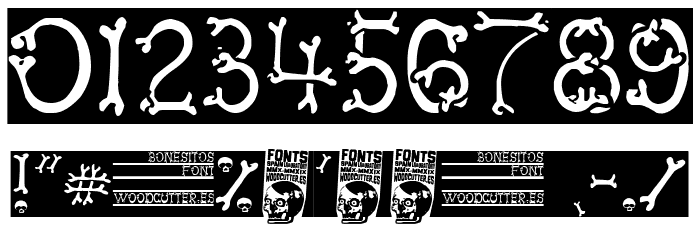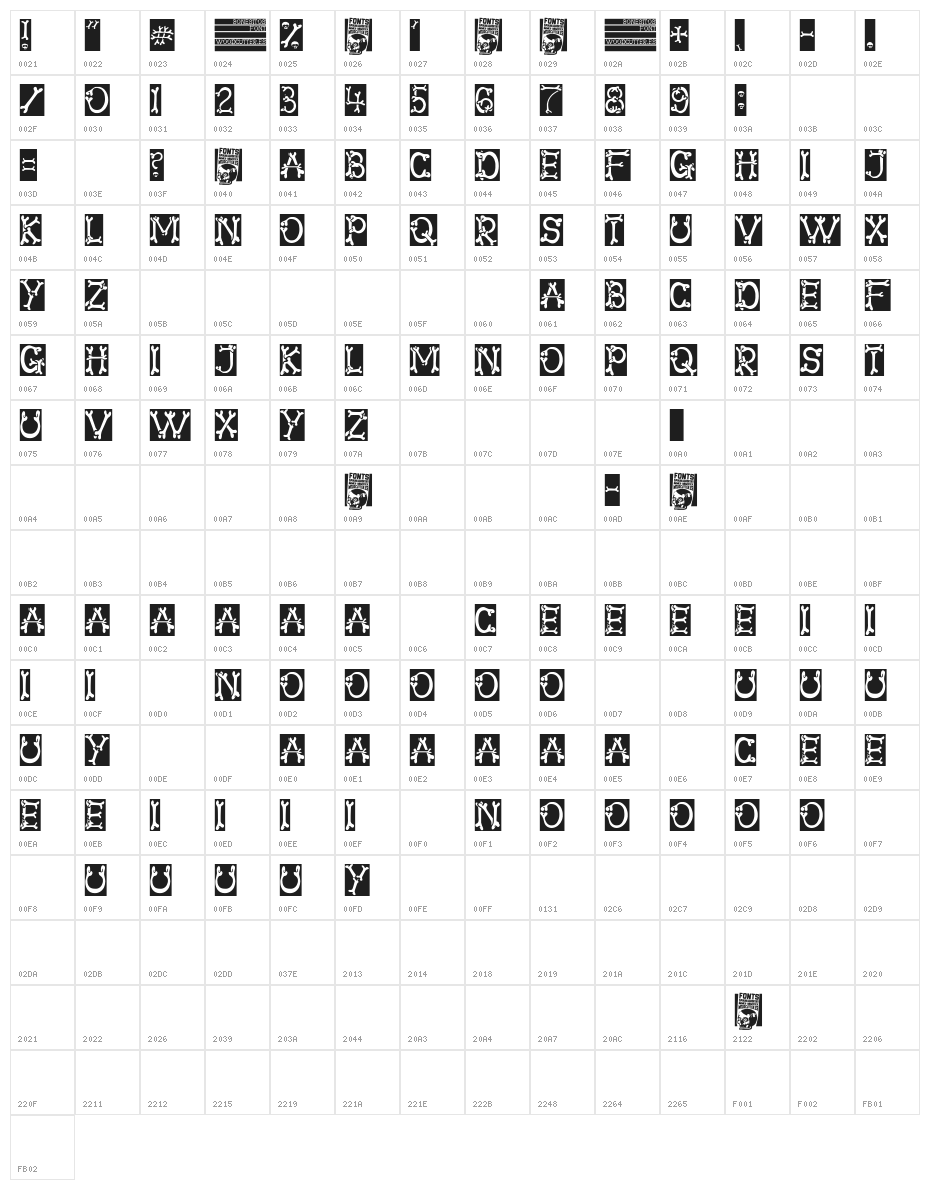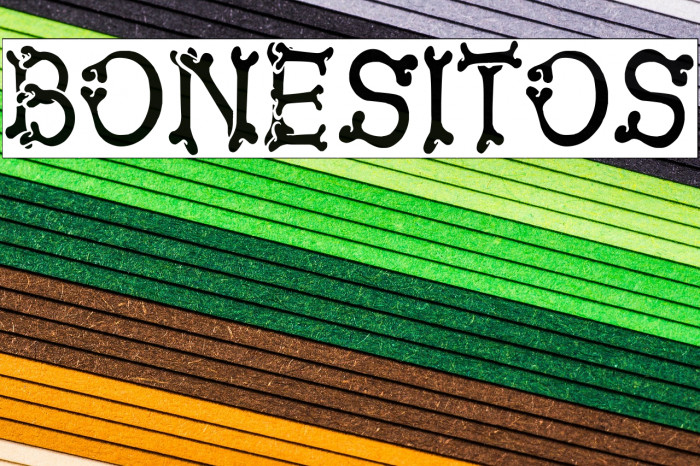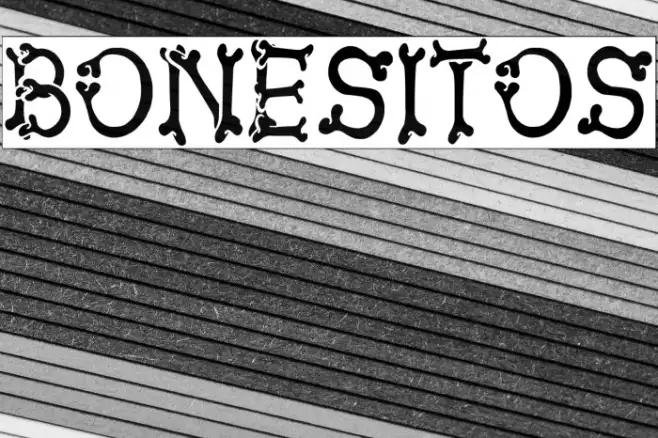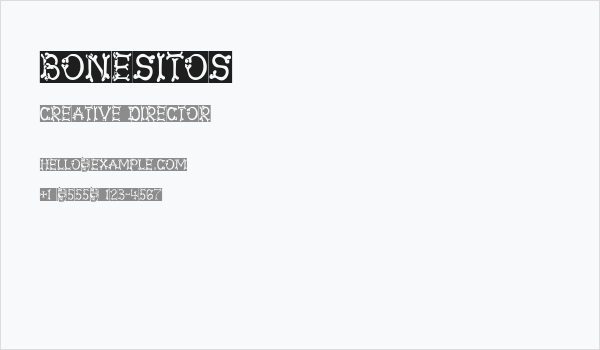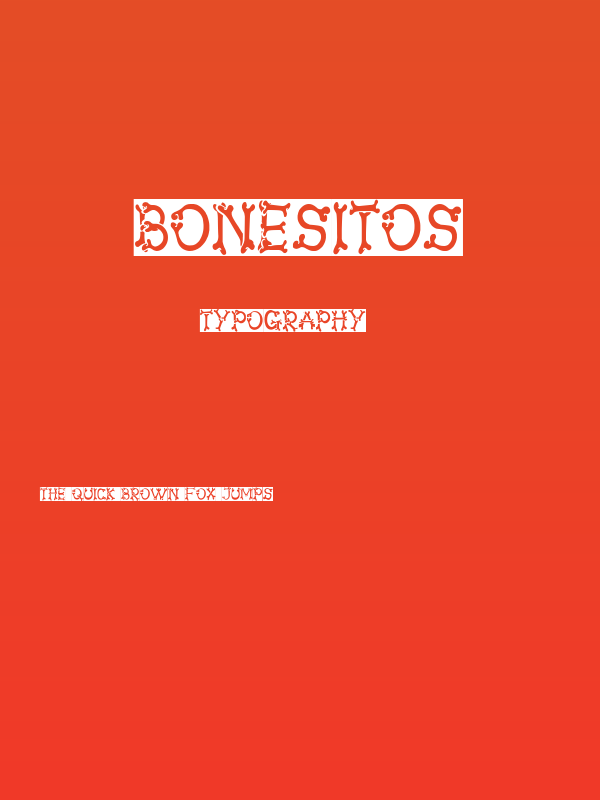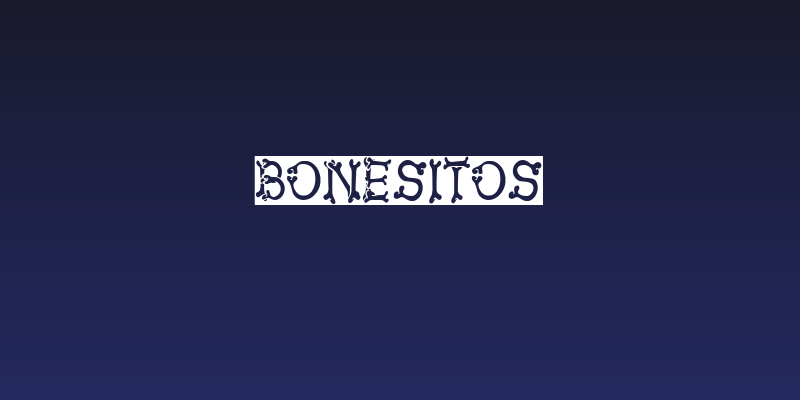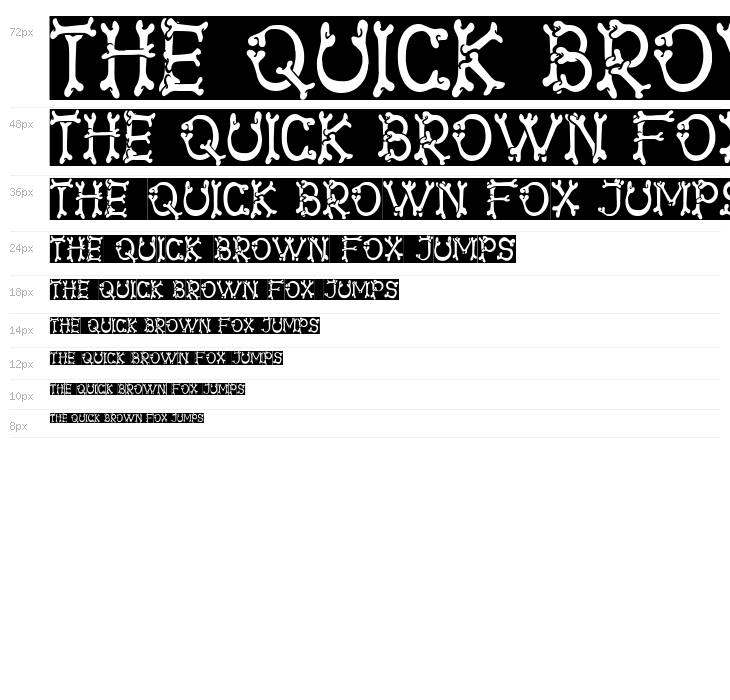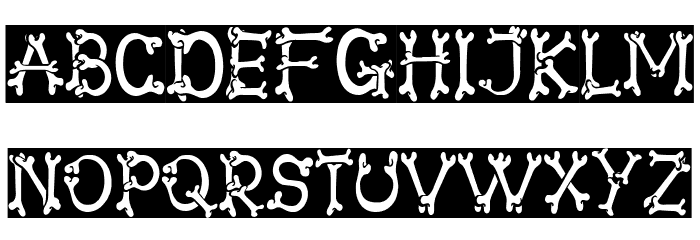
Bonesitos Font
Bonesitos Description
This font features a playful and spooky design, with each character crafted to resemble bones. The letters are composed of bone-like structures, creating a skeletal appearance that is both unique and eye-catching. The style is consistent across uppercase and lowercase letters, as well as numbers and special characters, maintaining a cohesive theme. The font's design is ideal for Halloween-themed projects or any creative work that requires a touch of the macabre. Its decorative nature makes it stand out, while the clear formation of each character ensures readability.
| Proposed Projects | Ideal for Halloween invitations, horror-themed posters, children's spooky storybooks, and themed party decorations. |